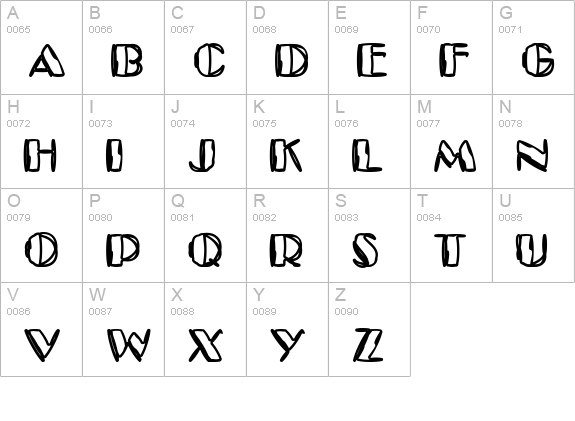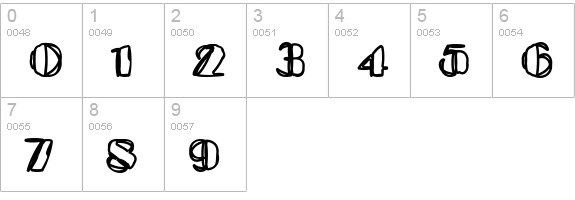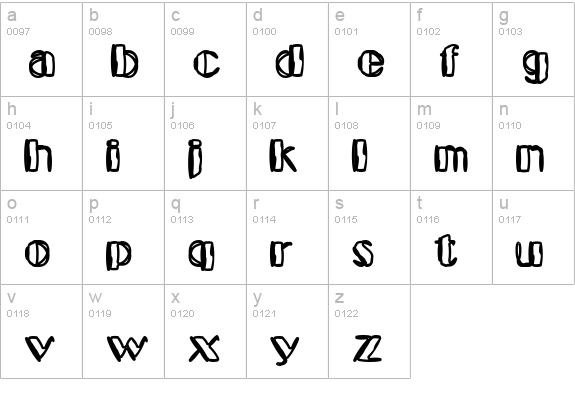
Kaptain Toupe Font Details
Introducing Kaptain Toupe, a stunningly exquisite font that effortlessly exudes elegance and sophistication. With its meticulously crafted letterforms and impeccable attention to detail, this font is truly a masterpiece in the world of typography. Kaptain Toupe is a versatile font that seamlessly blends classic and contemporary design elements, making it perfect for a wide range of projects. Whether you're creating wedding invitations, branding materials, or editorial designs, this font will effortlessly elevate your work to new heights of beauty and professionalism. What sets Kaptain Toupe apart is not just its visual appeal, but also its accessibility. This font is available to you completely free of charge, making it an absolute must-have for designers, creatives, and typophiles alike. Simply head over to FontsMarket.com and download this font with ease. It's never been easier to add a touch of timeless elegance to your designs. With its extensive character set and multiple stylistic alternates, Kaptain Toupe offers endless possibilities for customization. Whether you prefer a more ornate and decorative look or a clean and minimalist aesthetic, this font has got you covered. So why wait? Experience the sheer beauty and versatility of Kaptain Toupe today. Download it for free at FontsMarket.com and embark on a journey of creativity and inspiration. Let this font become your trusted companion as you unleash your imagination and bring your designs to life.